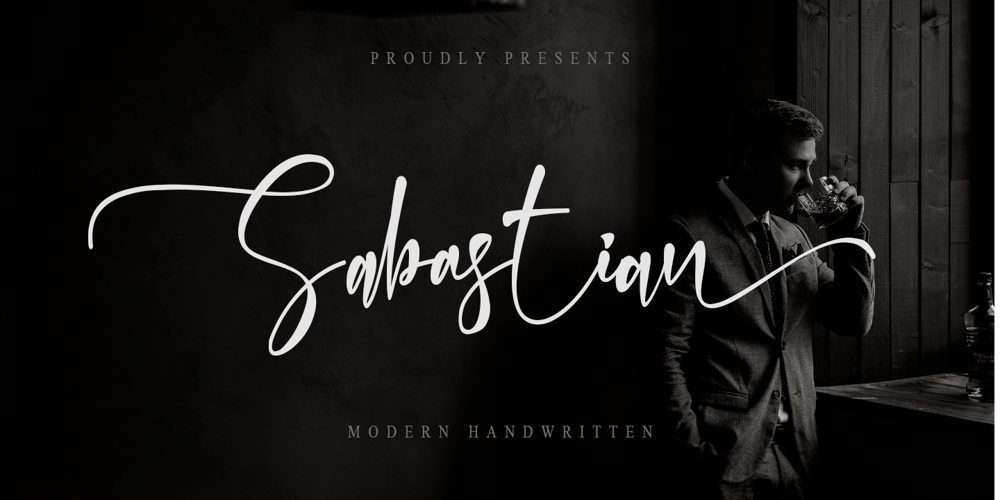
Sabastian
Sabastian font
Sabastian Font Family was designed by Thomas Aradea and published by Letterara. Sabastian contains 2 styles and family package options. Sabastian is the perfect handwritten font: Sweet, innocent, light, and charming, this one-of-a-kind typeface will add a unique charm to any design project! Sabastian font was created to look as close to a natural handwritten script as possible by including 73 ligatures. With built-in Opentype features, this script comes to life as if you are writing it yourself. You can see it in the picture shown. This font is PUA encoded which means you can access all of the amazing glyphs and swashes with ease! It also features a wealth of special features including alternate glyphs and ligatures.